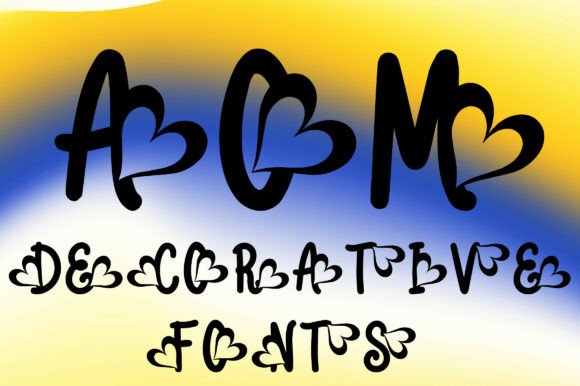
The Sweet Spot: Discovering the Charm of Aom Font
I’ll never forget the time I was working on a Valentine’s Day project for a client, and I just couldn’t find the right font to capture the warmth and playfulness of the occasion. The design needed something special – a touch of whimsy, a dash of romance, and a whole lot of personality. That’s when I stumbled upon Aom Font, and let me tell you, it was love at first sight! 💘
A Personal Review: What I Love About Aom Font
Aom Font has quickly become one of my go-to typefaces for projects that require a bit of charm and a lot of character. Here’s what I love about it:
- ✨ Heart-inspired details: The font’s unique heart-shaped elements add a touch of warmth and playfulness to any design.
- ✅ Versatility: Aom Font is perfect for a wide range of projects, from logos and branding to posters, invitations, and social media graphics.
- 💕 Emotional connection: The font’s sweet and stylish touch makes it easy to create designs that resonate with your audience on an emotional level.
While Aom Font is an amazing typeface, it’s not without its quirks. Here are a few things to keep in mind:
- ⚠️ Legibility at small sizes: Aom Font can get a bit tricky to read at very small sizes, so make sure to test it thoroughly before finalizing your design.
- 🤔 Overuse of heart details: While the heart-inspired details are a unique selling point, be careful not to overuse them – too many hearts can start to feel cluttered and overwhelming.
Exploring Alternatives: Similar Fonts to Aom Font
The Story Behind Aom Font
Aom Font was designed with love and care by a talented type designer who wanted to create a font that would bring a smile to people’s faces. Inspired by the joy of Valentine’s Day and the beauty of heart-shaped details, Aom Font was crafted to add a touch of warmth and personality to any project. Whether you’re a designer, crafter, or creative hobbyist, Aom Font is sure to become a favorite in your collection.
Q: What makes Aom Font unique?
A: Aom Font’s unique heart-inspired details and versatile decorative style make it stand out from other typefaces.
Q: Is Aom Font suitable for body text?
A: While Aom Font is beautiful, it’s best suited for headlines, titles, and short paragraphs. For longer body text, you might want to choose a font with better legibility.